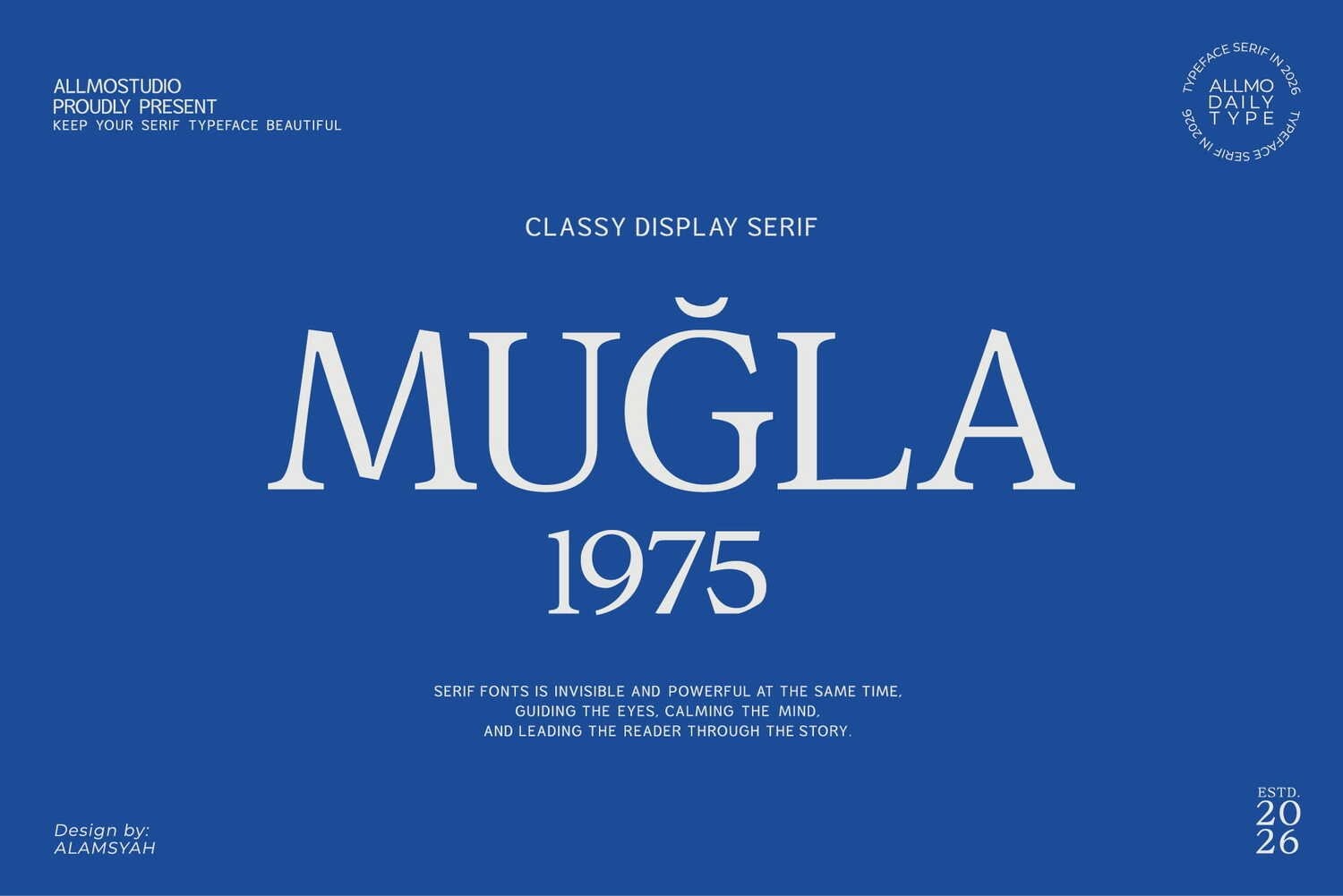
Mugla 1975 – Classic Serif Font
Mugla 1975 – Classic Serif Font is a distinctive and expressive font crafted to bring personality, structure, and creative energy into your projects. Muğla 1975 is a classy display serif font defined by its sharp serifs and elegant, high-contrast strokes, crafted to deliver a look of timeless sophistication. It’s the perfect choice for luxury branding, editorial headlines, magazine layouts, and premium packaging that demand a classic yet powerful presence.
Its clean, balanced characters are designed to be effortlessly stylish.
Designed to be both invisible and powerful, Muğla guides the eye with confidence and style, making it an essential typeface for designs that require a touch of classic authority.